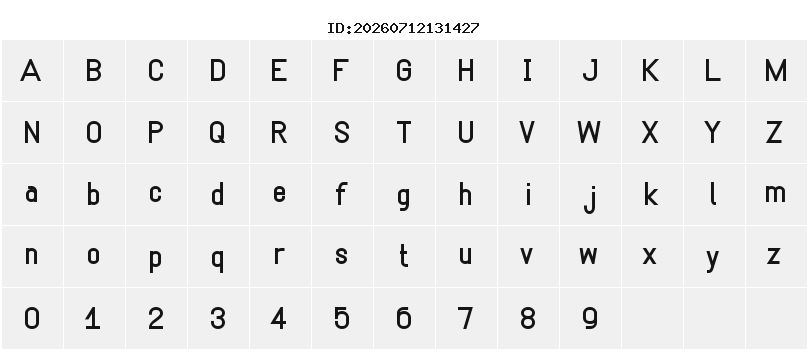
• Font Name: MARKSMAN
• Full Font Name: MARKSMAN
About MARKSMAN.ttf
MARKSMAN.ttf is a modern, elegant sans-serif font designed for ultimate readability and visual harmony. Perfect for branding, headlines, web design, and print materials.